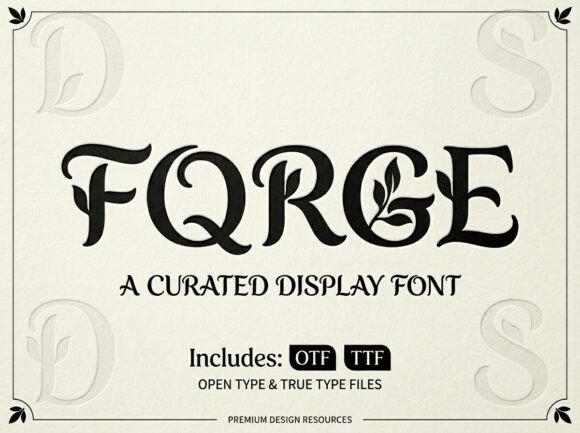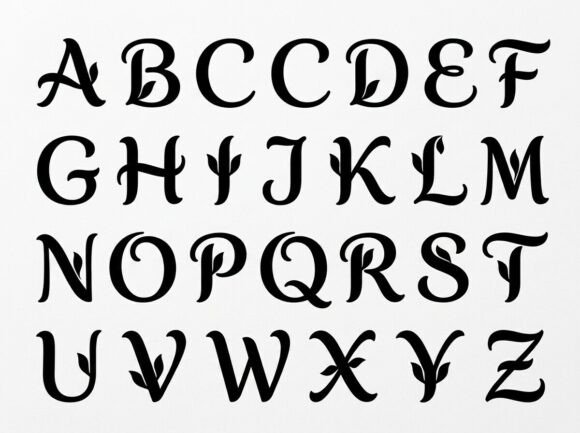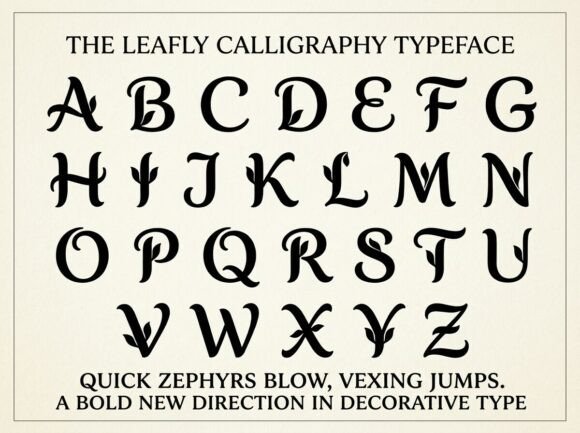
Unleash Your Creativity with Forge Font: A Stunning Decorative Display Font
Are you tired of using the same old fonts for your designs? Look no further than Forge Font, a breathtaking decorative display font that’s sure to turn heads. This font is specifically designed to be the center of attention, featuring unique artistic elements and a strong visual personality that will elevate your creative projects to the next level.
What Makes Forge Font So Special?
Forge Font is a versatile decorative font that’s perfect for creators who want to break away from the ordinary. Its stunning design makes it ideal for bold headlines, artistic logos, and creative packaging, while maintaining a professional and polished finish. Whether you’re a designer, craftsperson, or DIY enthusiast, this font is sure to inspire your next project.
This means that Forge Font is perfect for creating eye-catching titles, headings, and graphics, but it’s not suitable for body text or other applications where lowercase letters are necessary.
Use Cases: Where to Use Forge Font
So, where can you use Forge Font? The possibilities are endless! Here are a few ideas to get you started:
- Headlines and Titles: Use Forge Font to create bold, eye-catching headlines that grab attention.
- Logos and Branding: Forge Font is perfect for creating unique, artistic logos that reflect your brand’s personality.
- Packaging and Labeling: Add a touch of elegance and sophistication to your packaging with Forge Font.
- Signage and Displays: Use Forge Font to create eye-catching signs and displays that showcase your message.
Forge Font offers a range of benefits for designers and crafters, including:
- Unique and Artistic: Forge Font features unique artistic elements and a strong visual personality that will set your designs apart.
- Versatile: This font is versatile enough for a wide range of applications, from bold headlines to artistic logos.
- Professional and Polished: Forge Font maintains a professional and polished finish, ensuring that your designs look high-end and sophisticated.
In conclusion, Forge Font is a stunning decorative display font that’s perfect for creators who want to break away from the ordinary. Its unique artistic elements, strong visual personality, and versatility make it ideal for a wide range of applications. Whether you’re a designer, craftsperson, or DIY enthusiast, Forge Font is sure to inspire your next project. So why wait? Get your copy of Forge Font today and unleash your creativity!